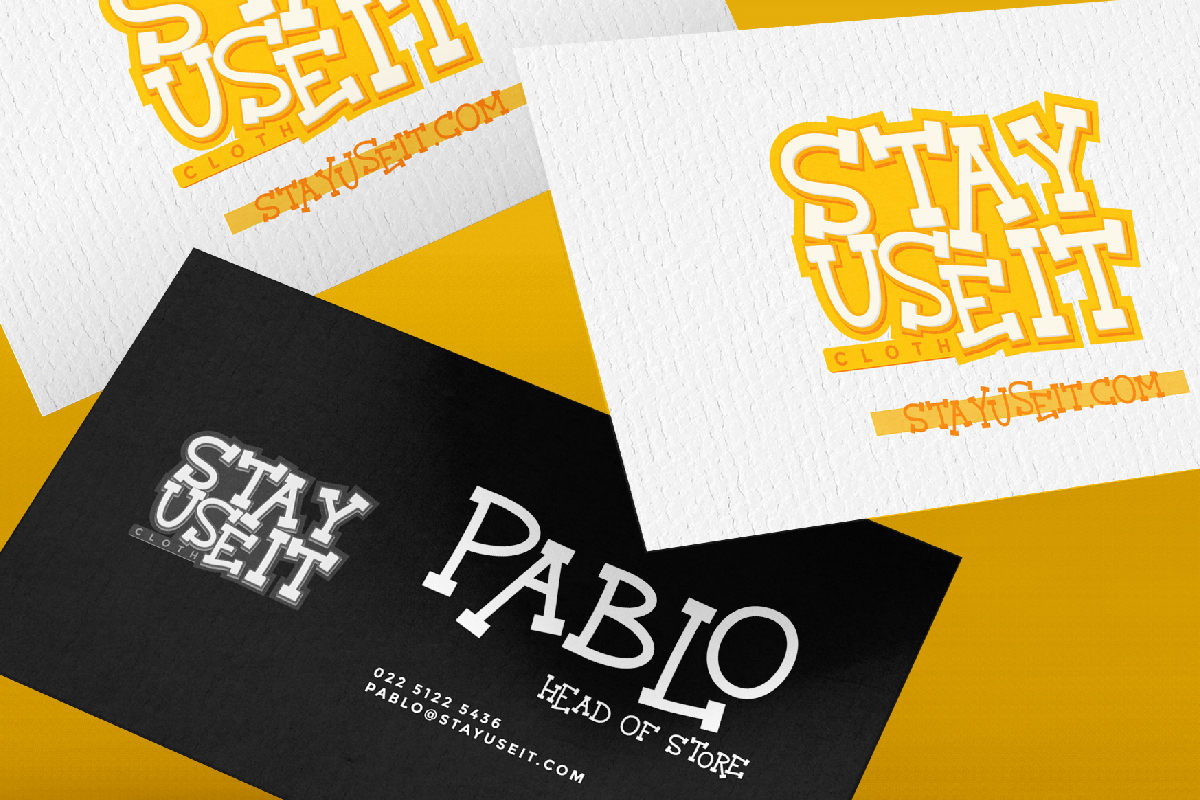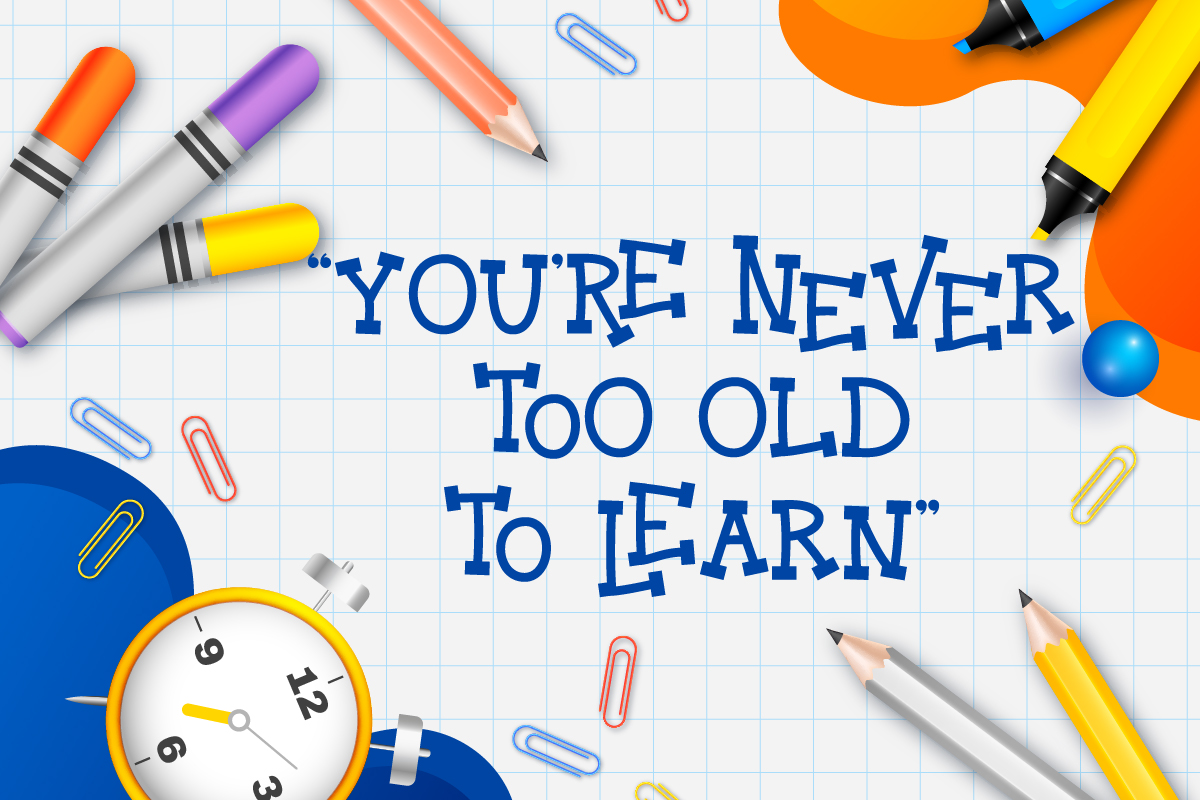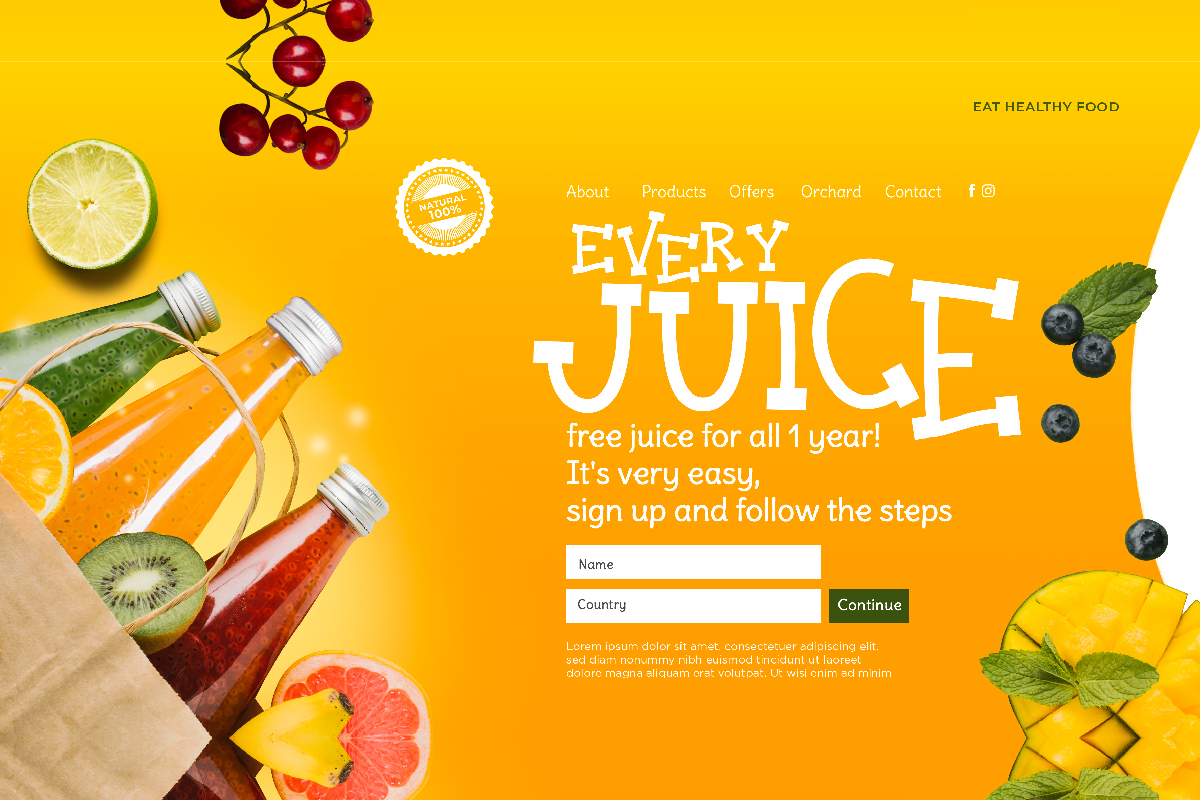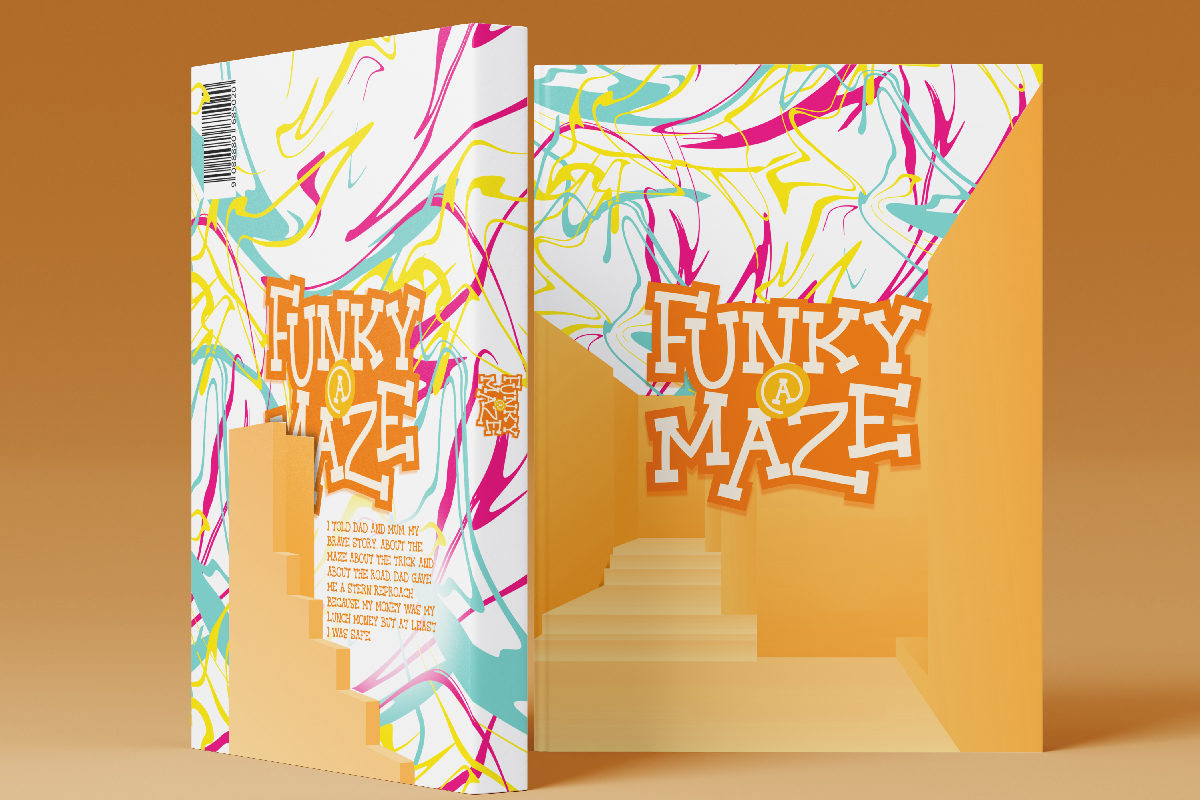
Marvin Pablo Font
Marvin Pablo Display Font
This is a fun serif display font with funky comic style. This font is inspired by cool writing with a unique style during school and still easily to read. It will be perfect for industry such as, architect, comic, fashion, school, snack brand, writer, and more.